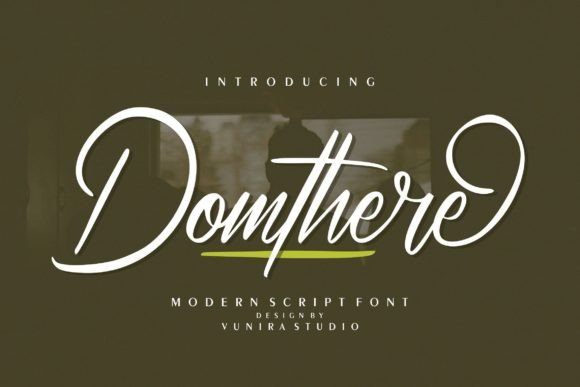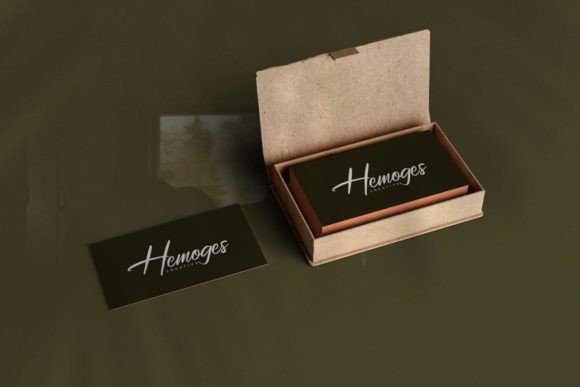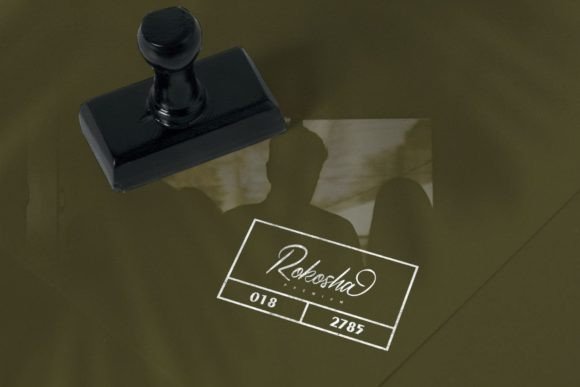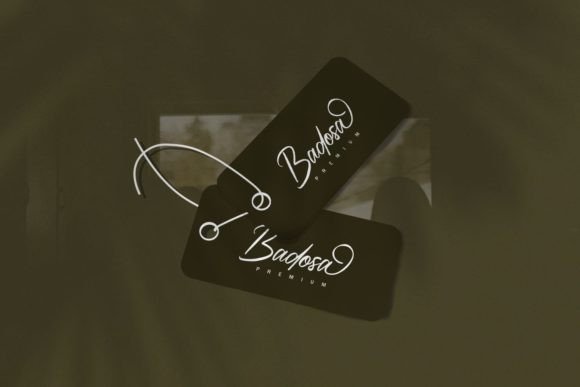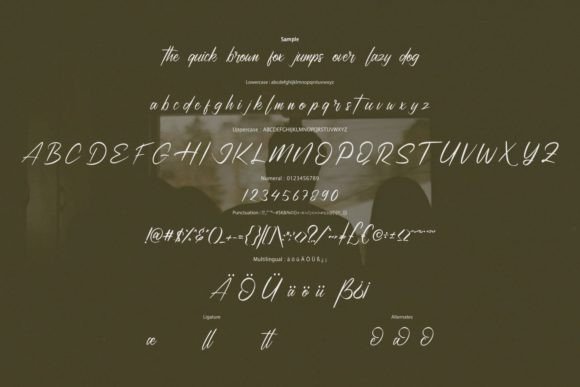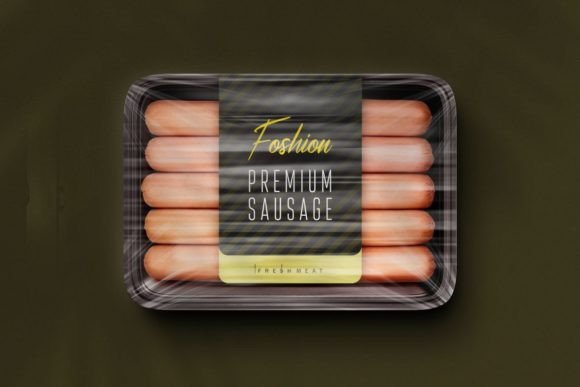
Domthere Font
About Domthere Font
Domthere is a finely crafted and well-rounded handwritten font, specifically tailored for creative projects that demand authenticity and a touch of craftiness. This font proves to be an ideal choice for a variety of applications, including wedding invitations, birthday cards, personal branding, elegant logos, and more. By incorporating Domthere into your designs, you ensure that they stand out with a distinctive and genuine typographic appeal.
In the realm of wedding invitations, Domthere brings a delicate and elegant quality to the forefront. Its well-rounded and carefully crafted letterforms add a sense of sophistication, setting the tone for a refined and memorable celebration. The authenticity of the handwritten style infuses a personal touch into the invitations, making them uniquely suited for such special occasions.
For birthday cards, Domthere introduces a delightful blend of craftiness and elegance. The font’s well-rounded nature imparts a sense of warmth, making your birthday messages feel genuine and heartfelt. The handwritten charm adds a touch of personality, ensuring that your cards stand out as thoughtful and creatively designed expressions.
In the context of personal branding, Domthere becomes a distinctive element that communicates authenticity and creativity. Whether used in a signature or as part of a logo, this font adds a human touch, fostering a genuine connection with your audience. Its versatility allows it to adapt seamlessly to various branding styles, from elegant and upscale to friendly and approachable.
The font’s elegant and well-rounded qualities make it a standout choice for logos across different industries. Domthere lends a touch of sophistication to logos, ensuring they leave a lasting impression on viewers. Its versatility enables it to complement a wide range of design elements, contributing to a cohesive and visually appealing brand identity.
In essence, Domthere is more than just a font; it’s a design asset that enhances the authenticity and visual appeal of your projects. Its delicate and well-rounded characteristics make it a valuable tool for any creative undertaking that requires genuine and crafted typography. Let Domthere be the distinctive touch that elevates your designs into standout works of art.